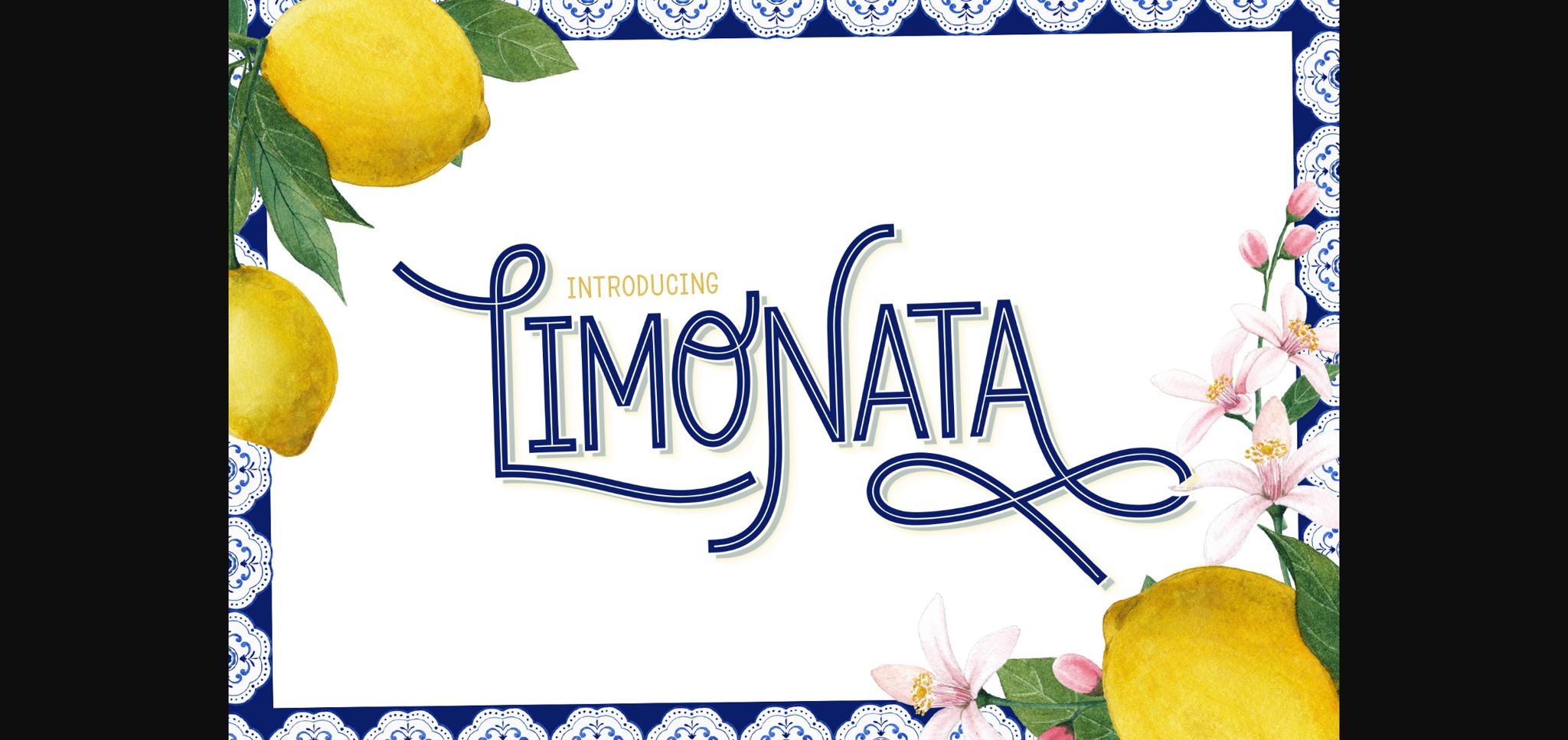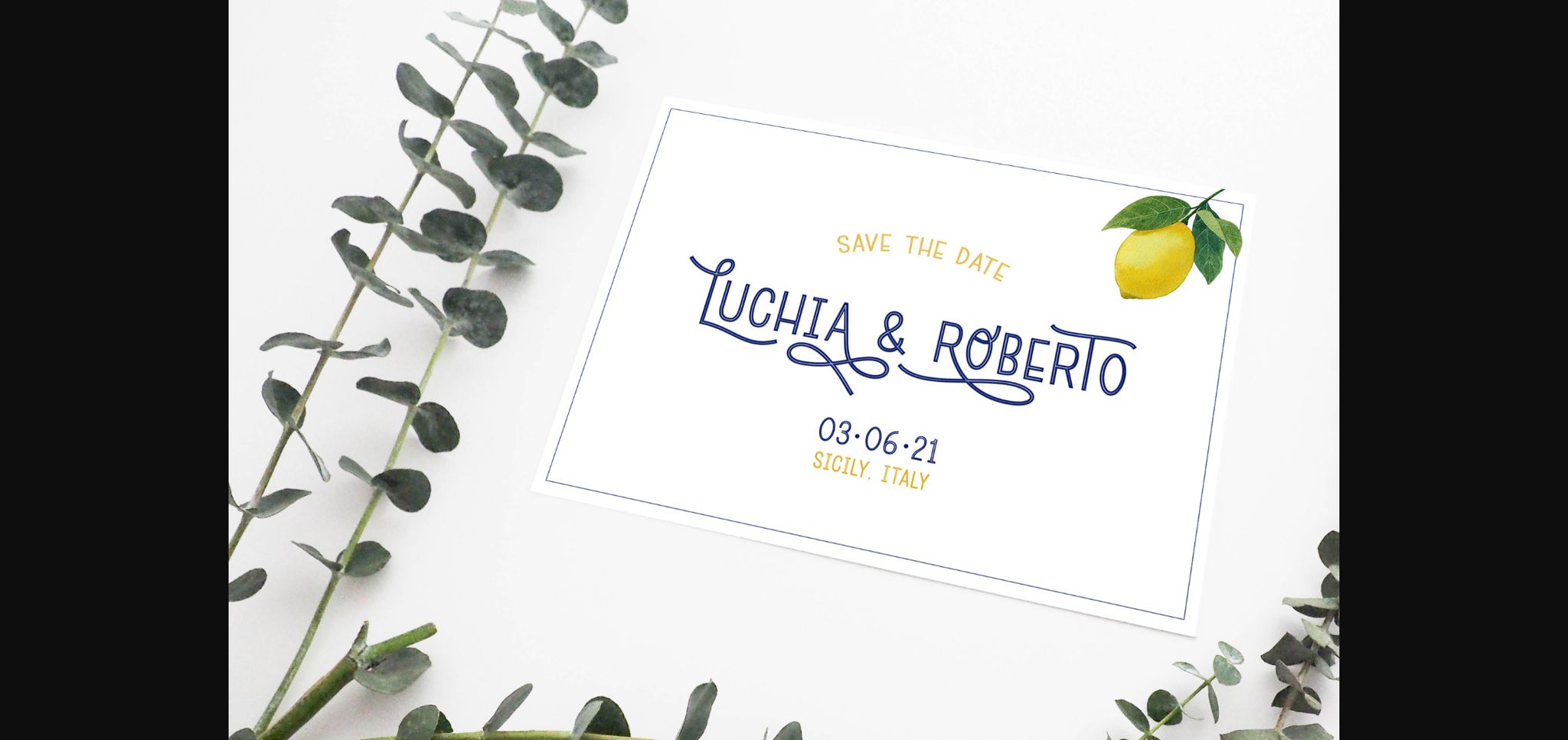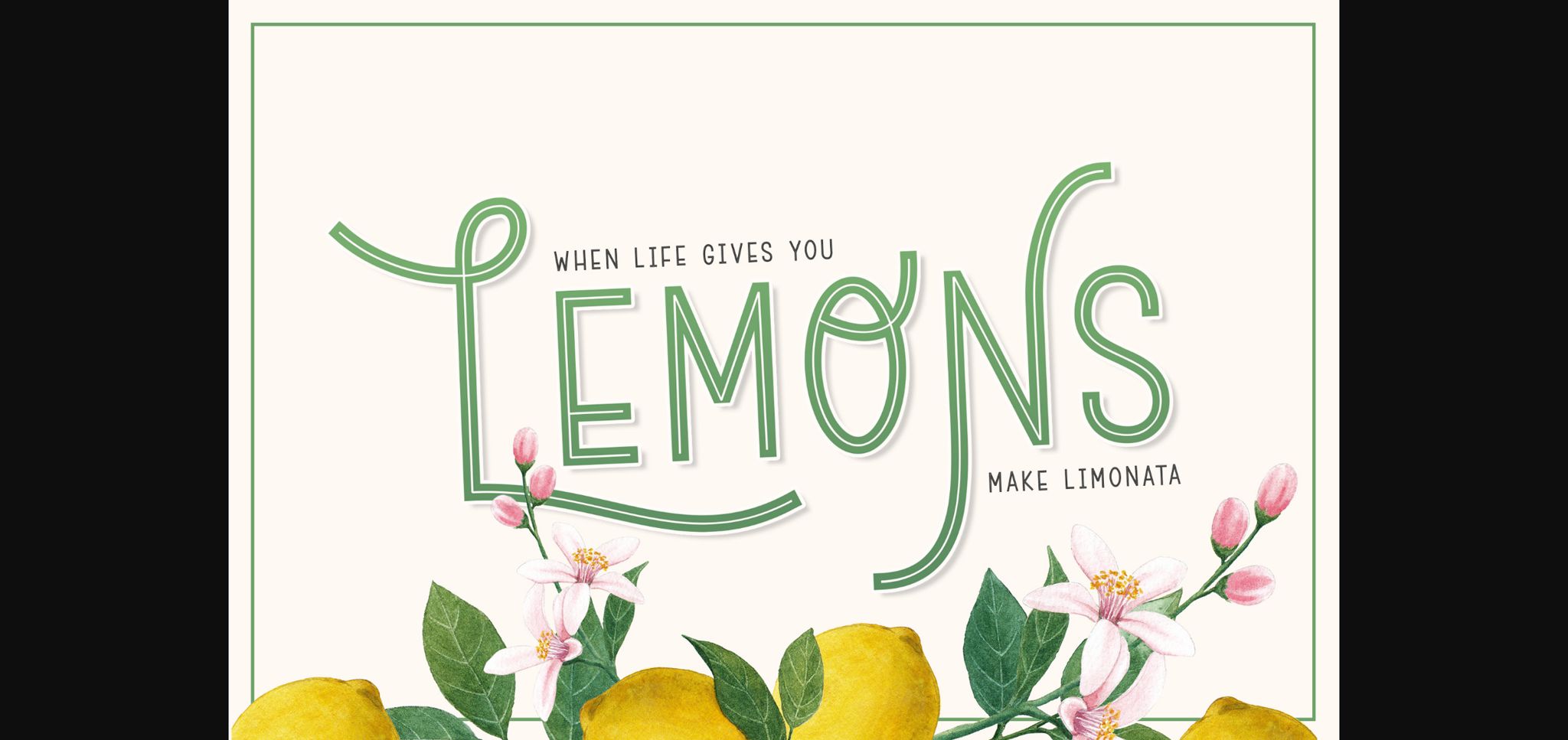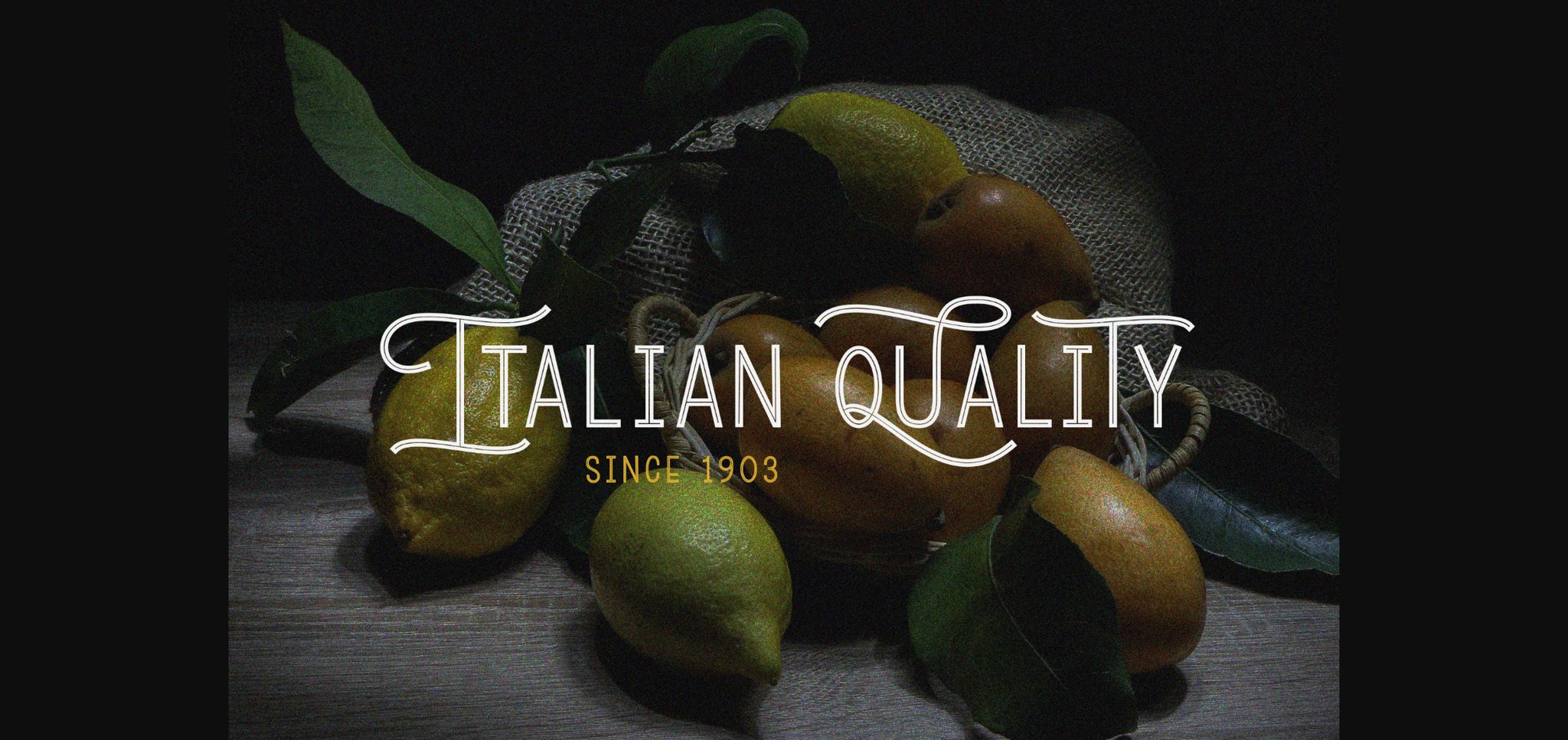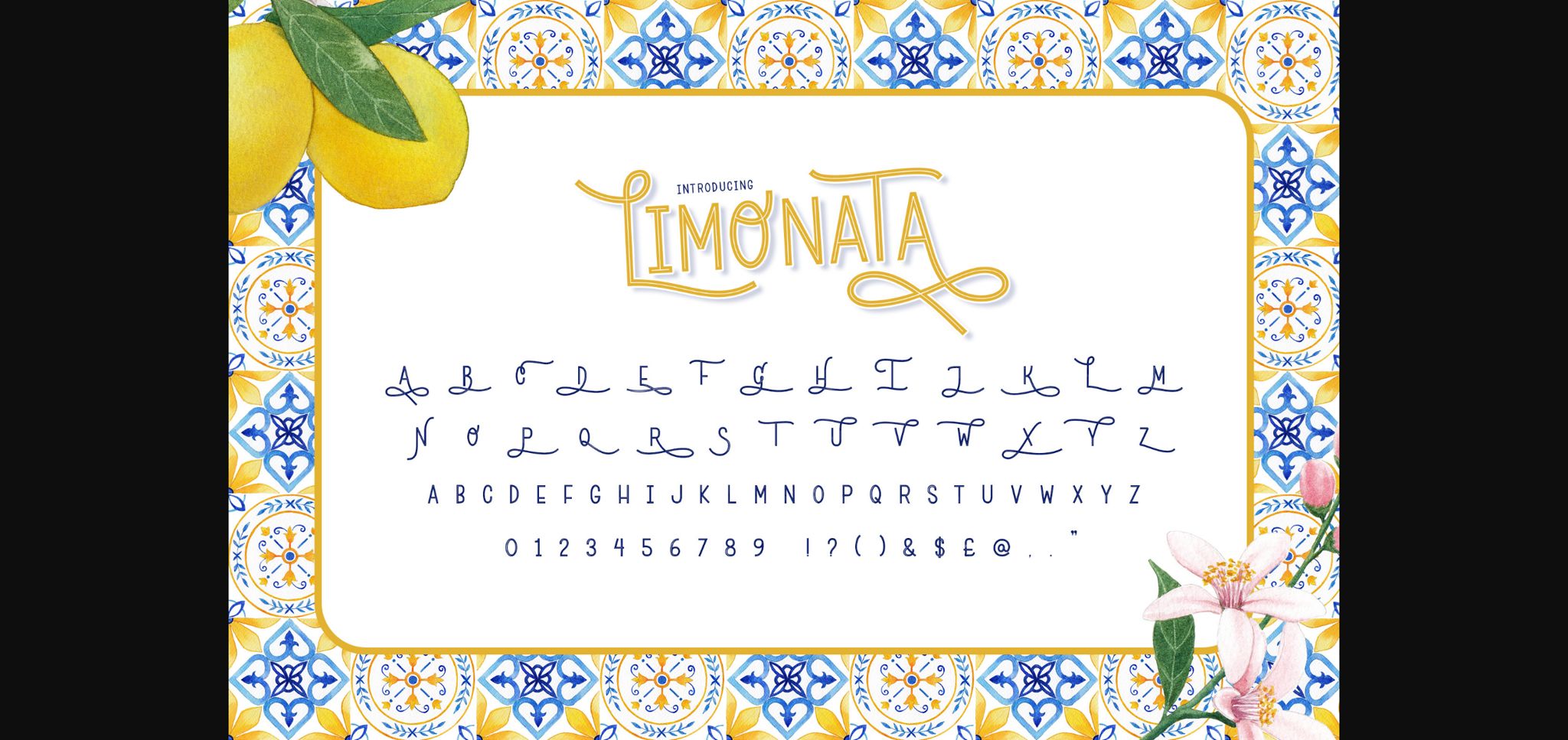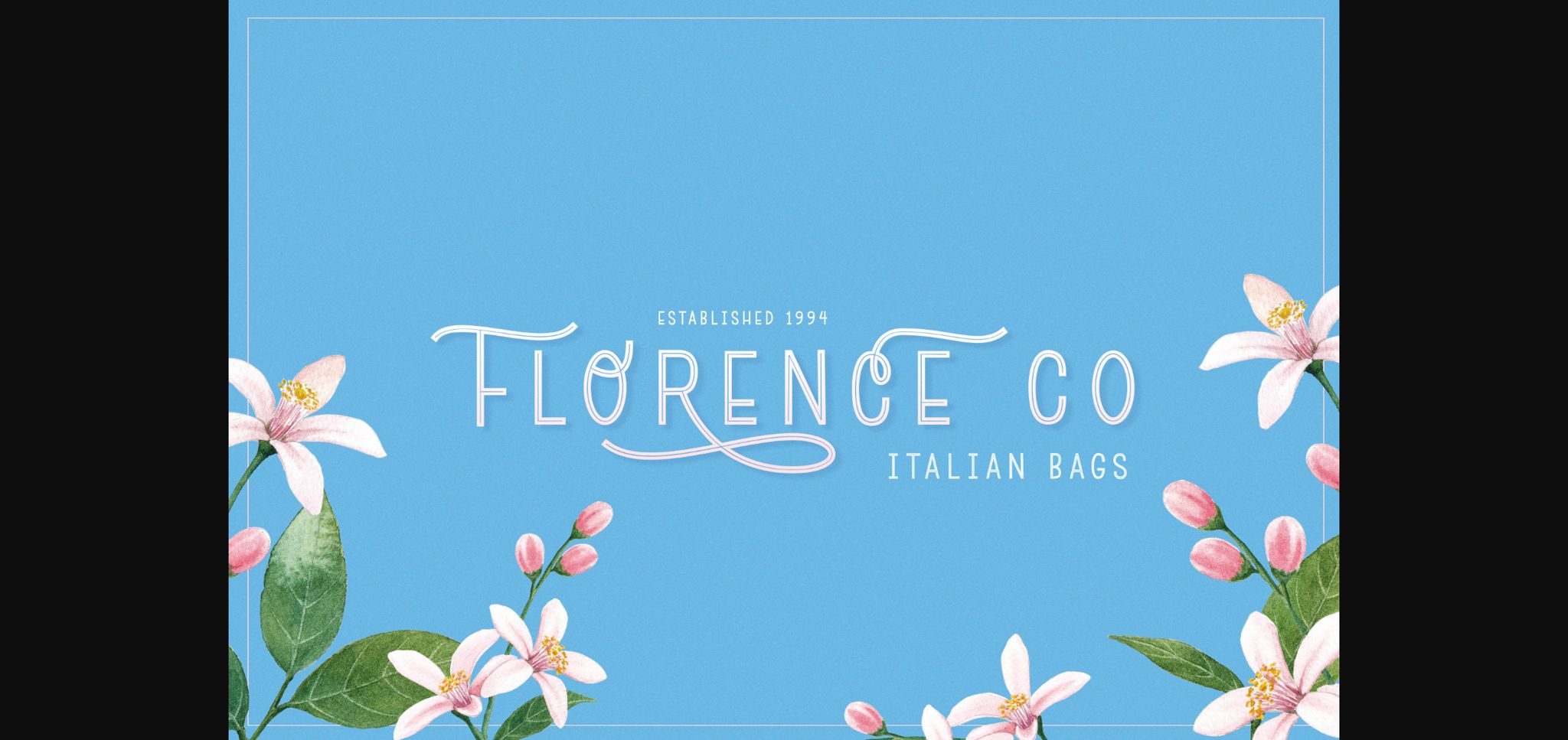
Limonata is an elegant and classy sans serif font. It is defined by smooth curves and is perfect for fashion branding or editorial designs. Add it confidently to your projects, and you will love the results.